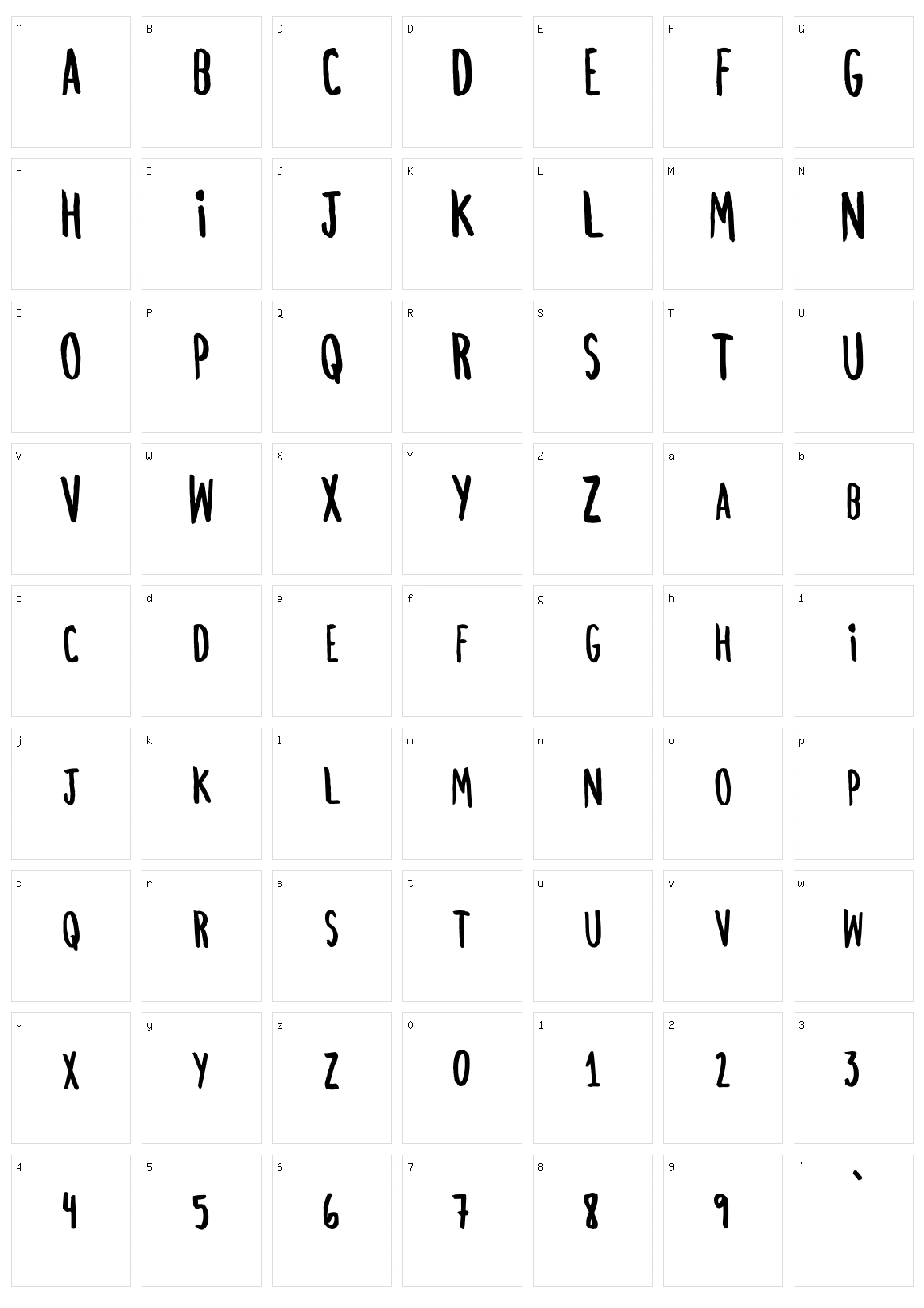
The free font Chez Vous is carefully designed by Bia Bittencourt, showcasing a thoughtful balance of creativity and usability and falls under the Script font style. When you download the ZIP file, it contains only 12.3 KB of font files, making it lightweight and quick to download. Please review the license details below to understand permitted usage and distribution rights. If license information is not available, we recommend using this font for personal projects only or contacting the author directly for commercial usage permissions.